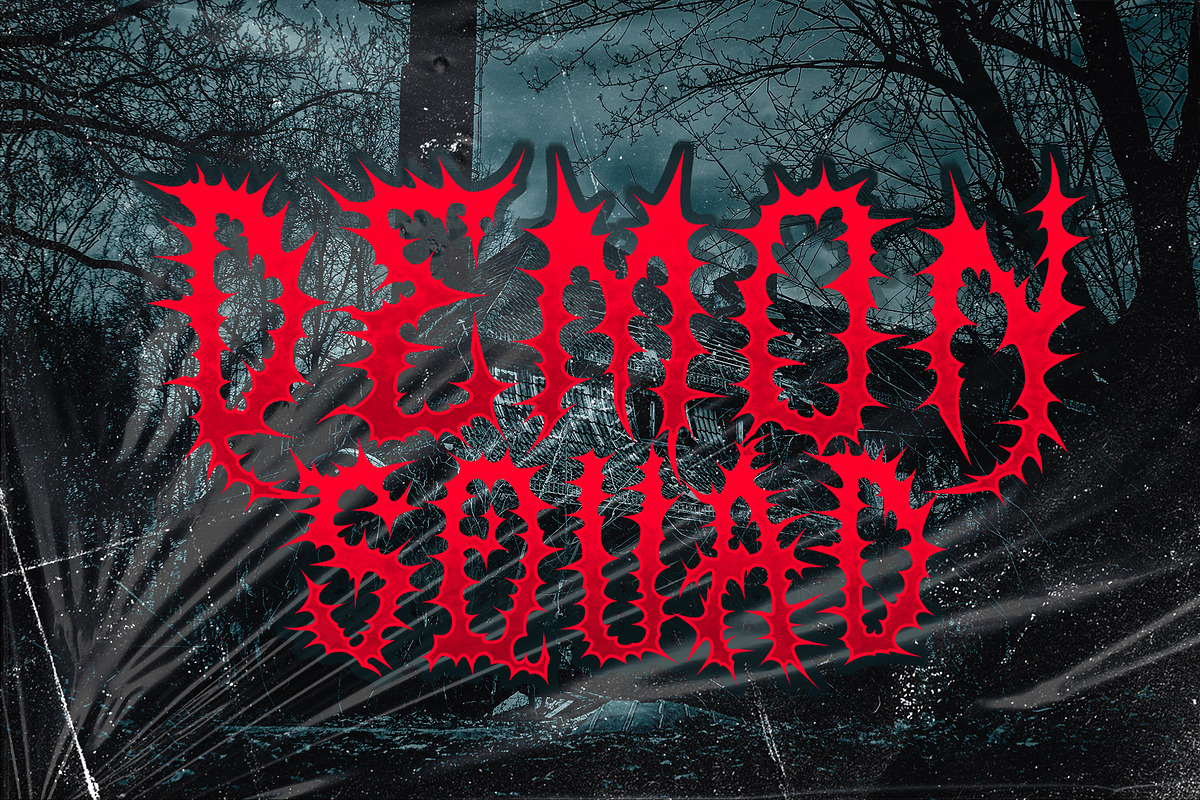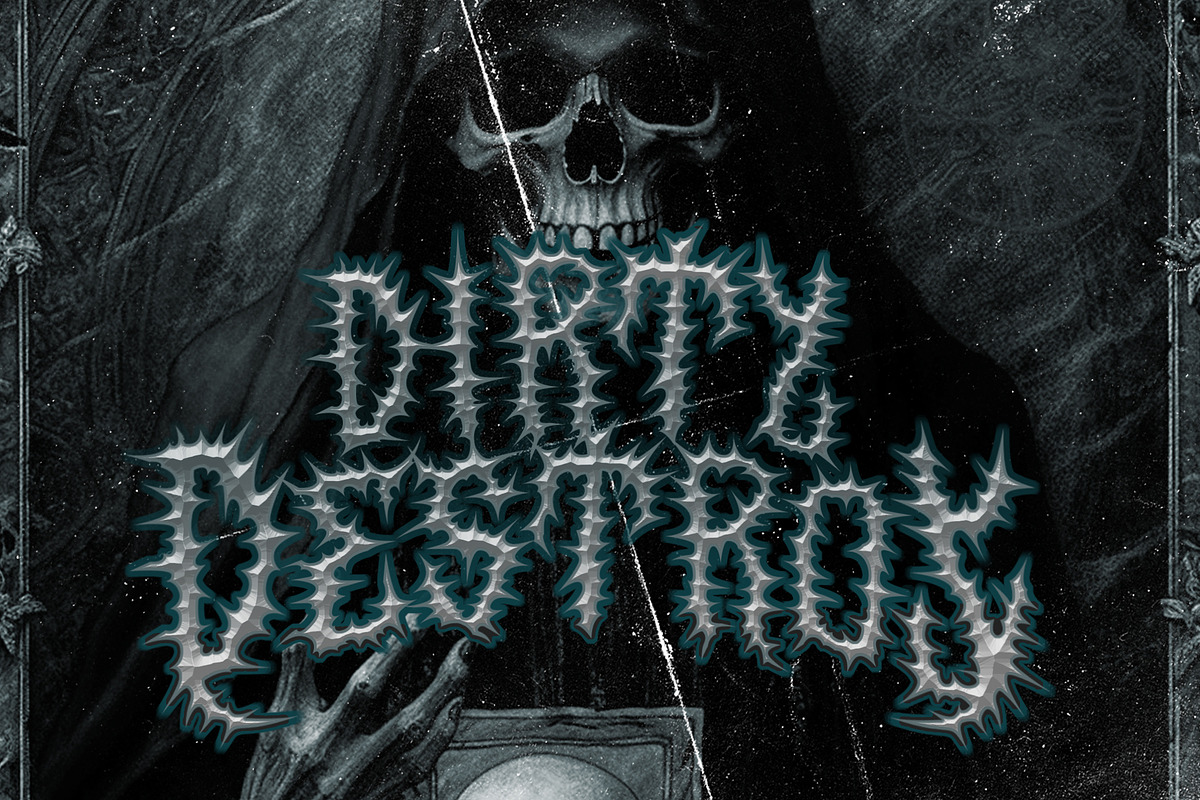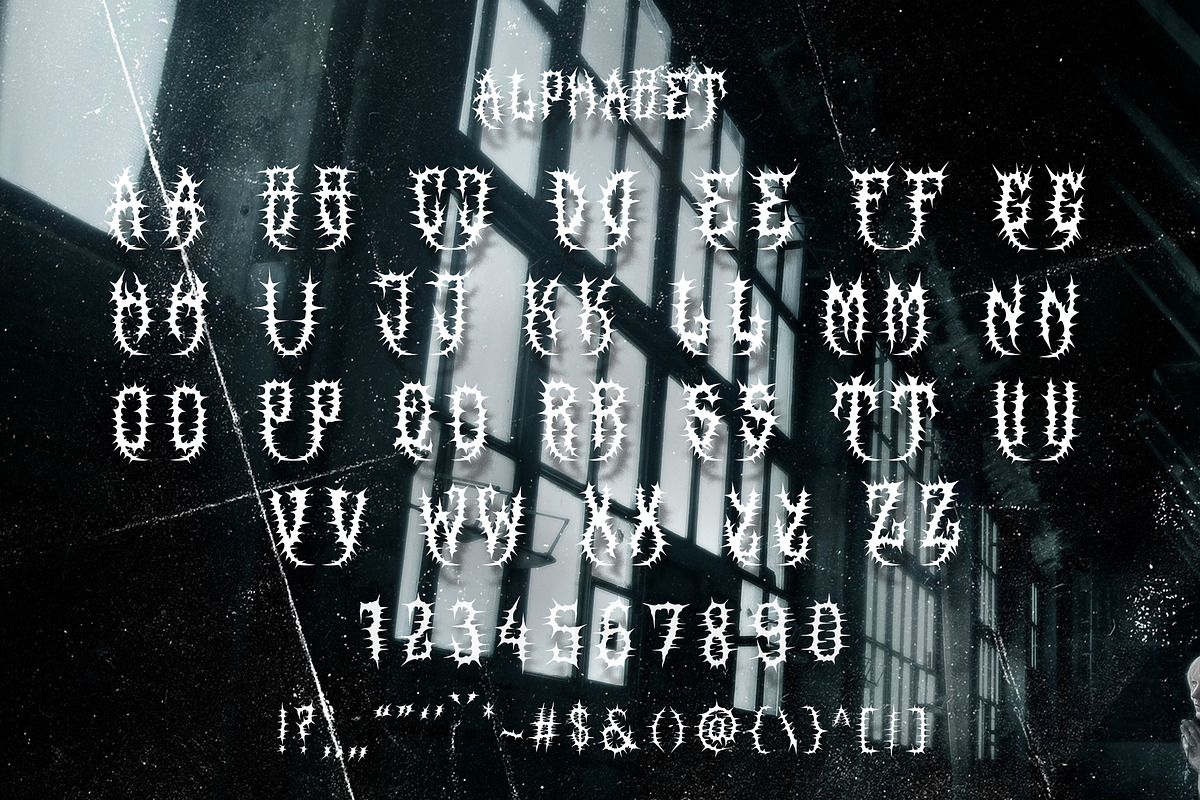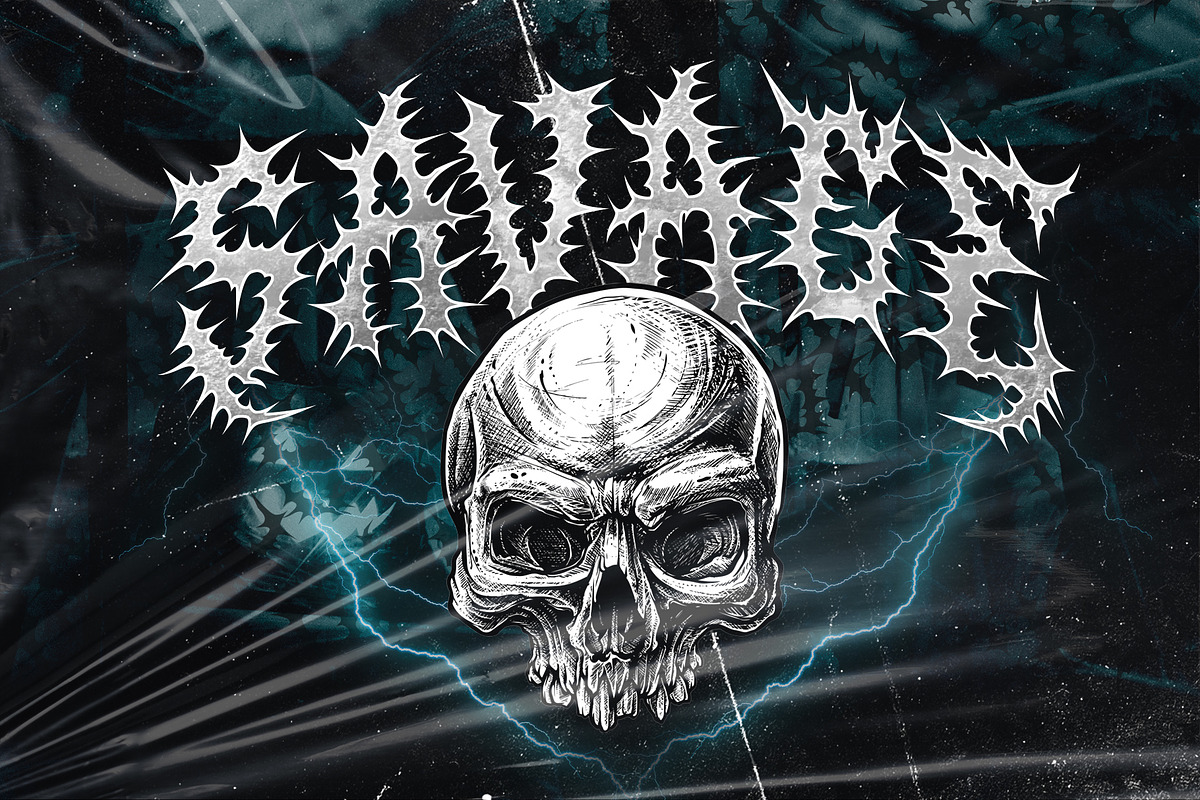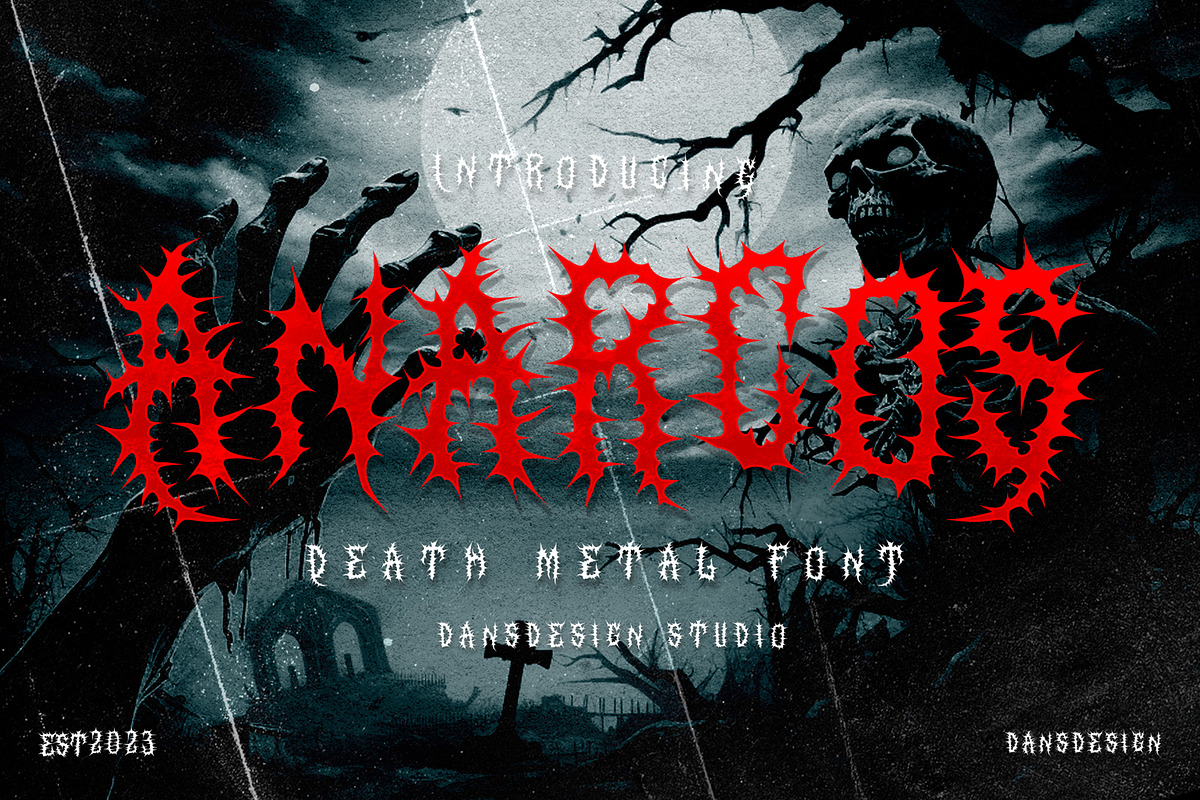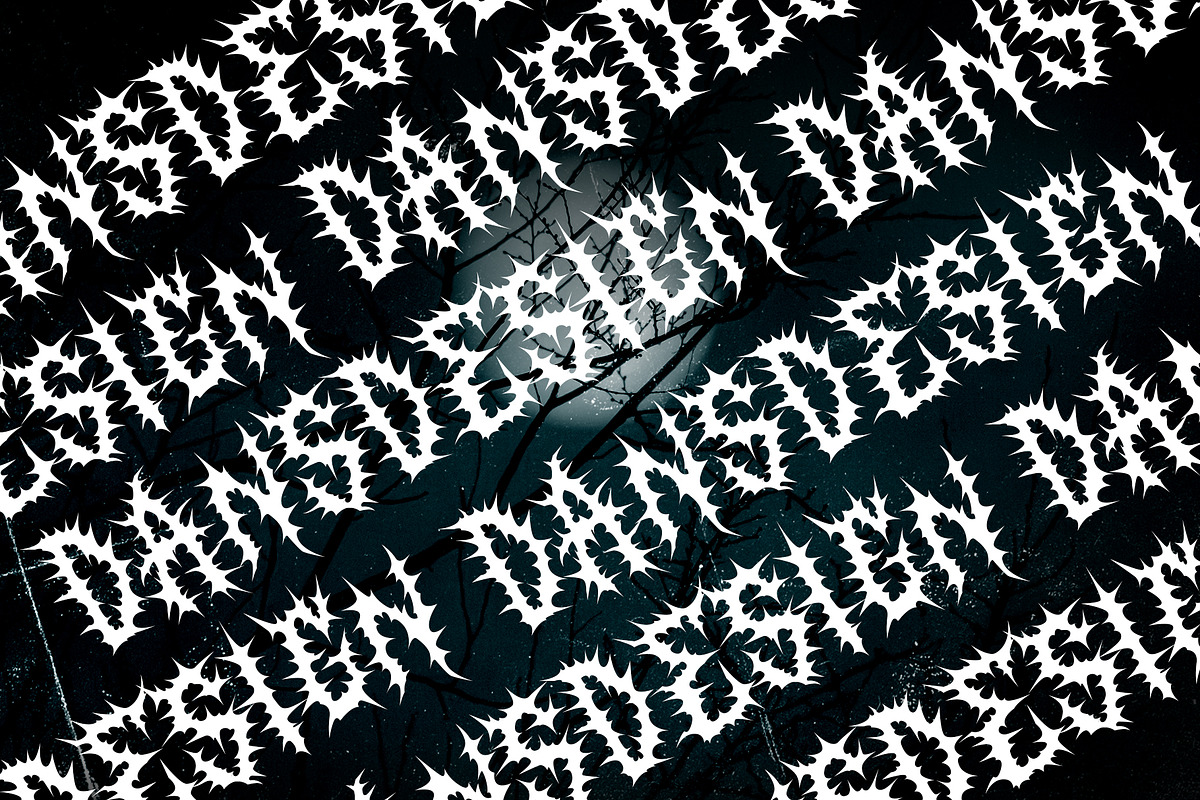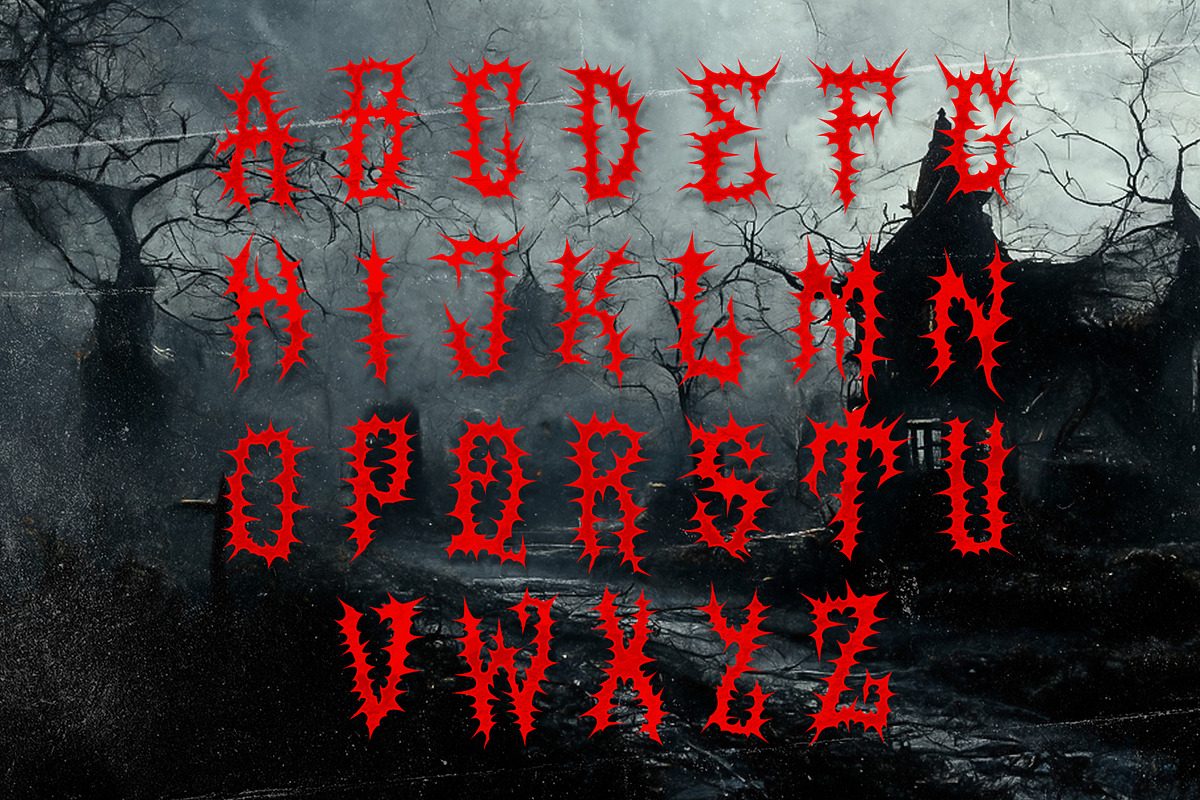
Anarcos Blackletter Metal Horror
Anarcos Blackletter Metal Horror Font is a bold and highly detailed display typeface inspired by gothic blackletter and heavy metal aesthetics. With its sharp edges and dramatic strokes, this font is perfect for horror-themed designs, music artwork, tattoo branding, vintage logos, retro-urban posters, merchandise, and other creative projects that need a dark and powerful look.
Bring intensity and gothic energy to your designs with Anarcos Blackletter Metal Horror Font.